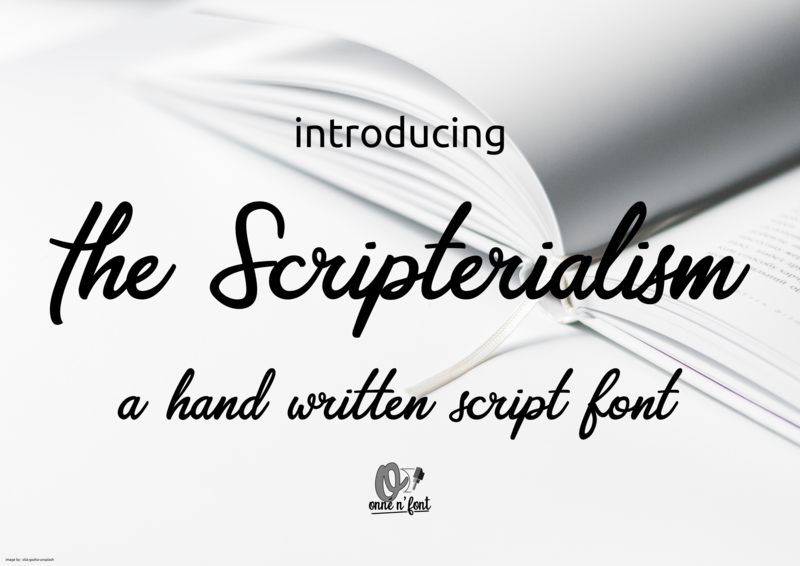
Font name: | Scripterialism |
Author: | Onne Hermawan |
Note by Onne Hermawan | |
Scripterialism is taken from handwriting using a brush pen, with a lot of curve modifications, so be what it is now. This font is great for long text needs, also suitable for designing. This is a free version for personal use. For the full version can be found in here www.creativefabrica.com/product/scripterialism/ref/185557/. Thank you |